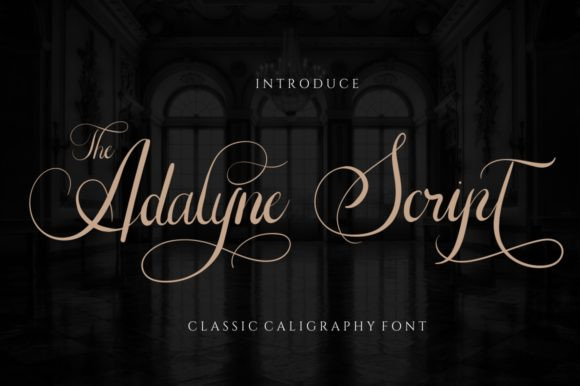
The Adelyne Script Font
The Adelyne Script FontThe Adelyne is a modern and flowing handwritten font. Simple and easy to use, this font will be very beautiful if you mix it with your various craft designs.